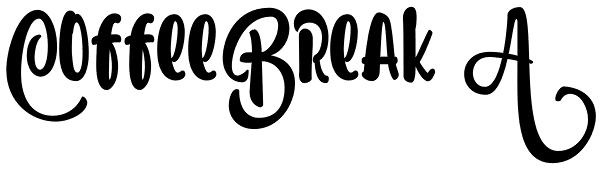
CoffeeBreak
The coffee made typography. CoffeeBreak is a typefamily designed by Carlos Fabian Camargo G. Its purpose is to communicate similar feelings to the ones you get when you first try the best roasted Colombian coffee early in the morning. That is the...